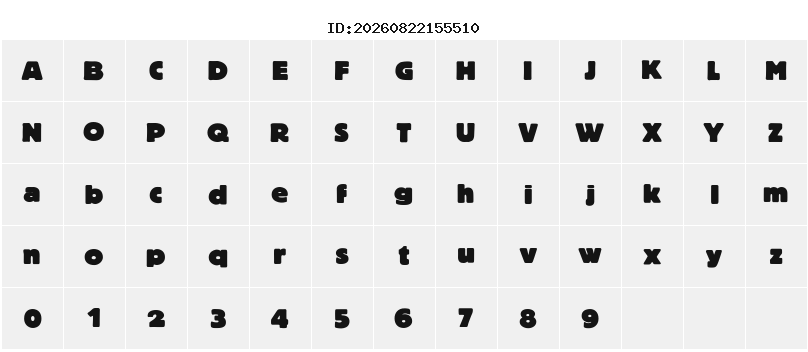
Schwere Preview
• Font Name: Schwere
• Full Font Name: Schwere
• PostScript Name: Schwere
• Character Count: 177
About Schwere.ttf
Schwere.ttf is a modern, elegant sans-serif font designed for ultimate readability and visual harmony. Perfect for branding, headlines, web design, and print materials.